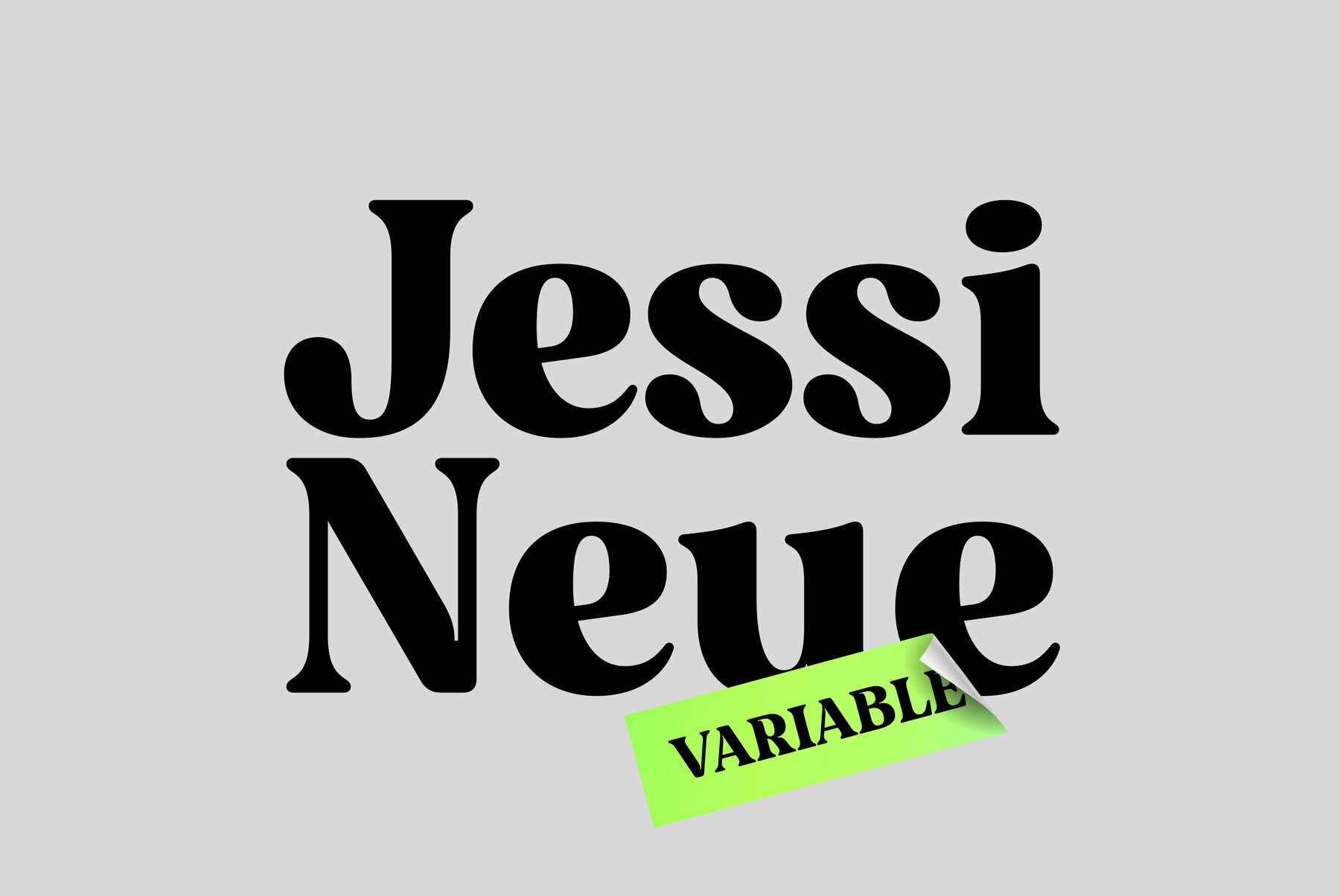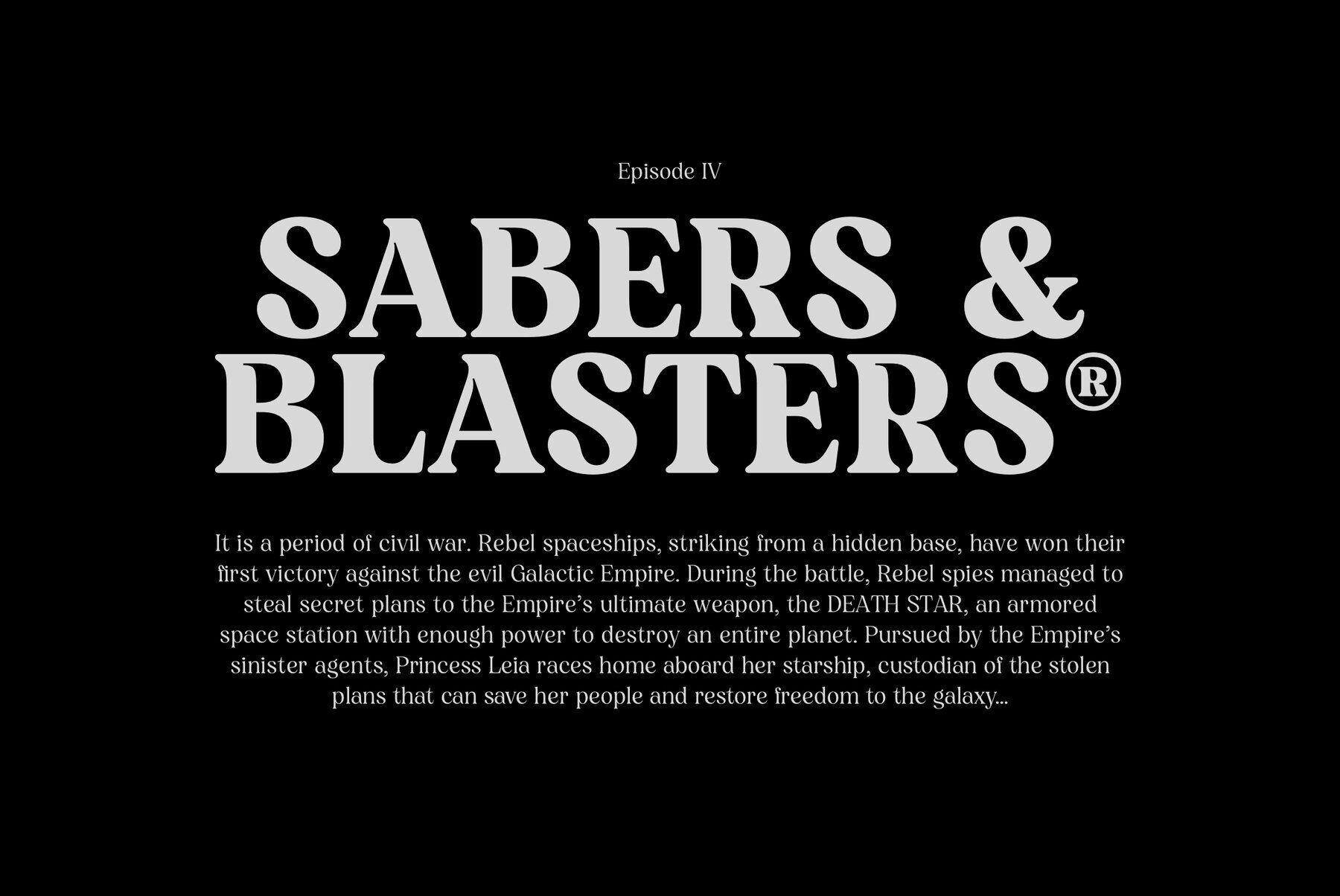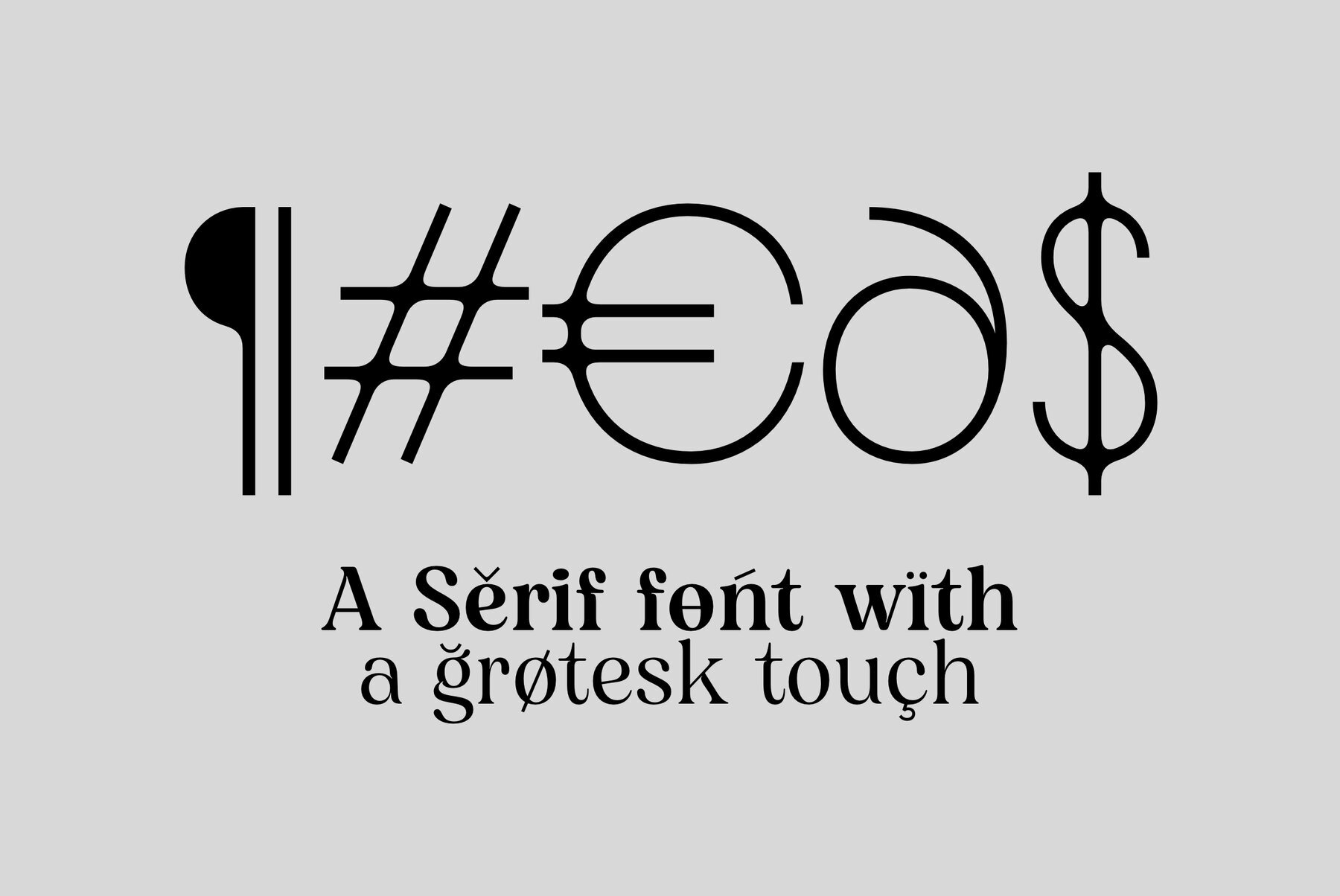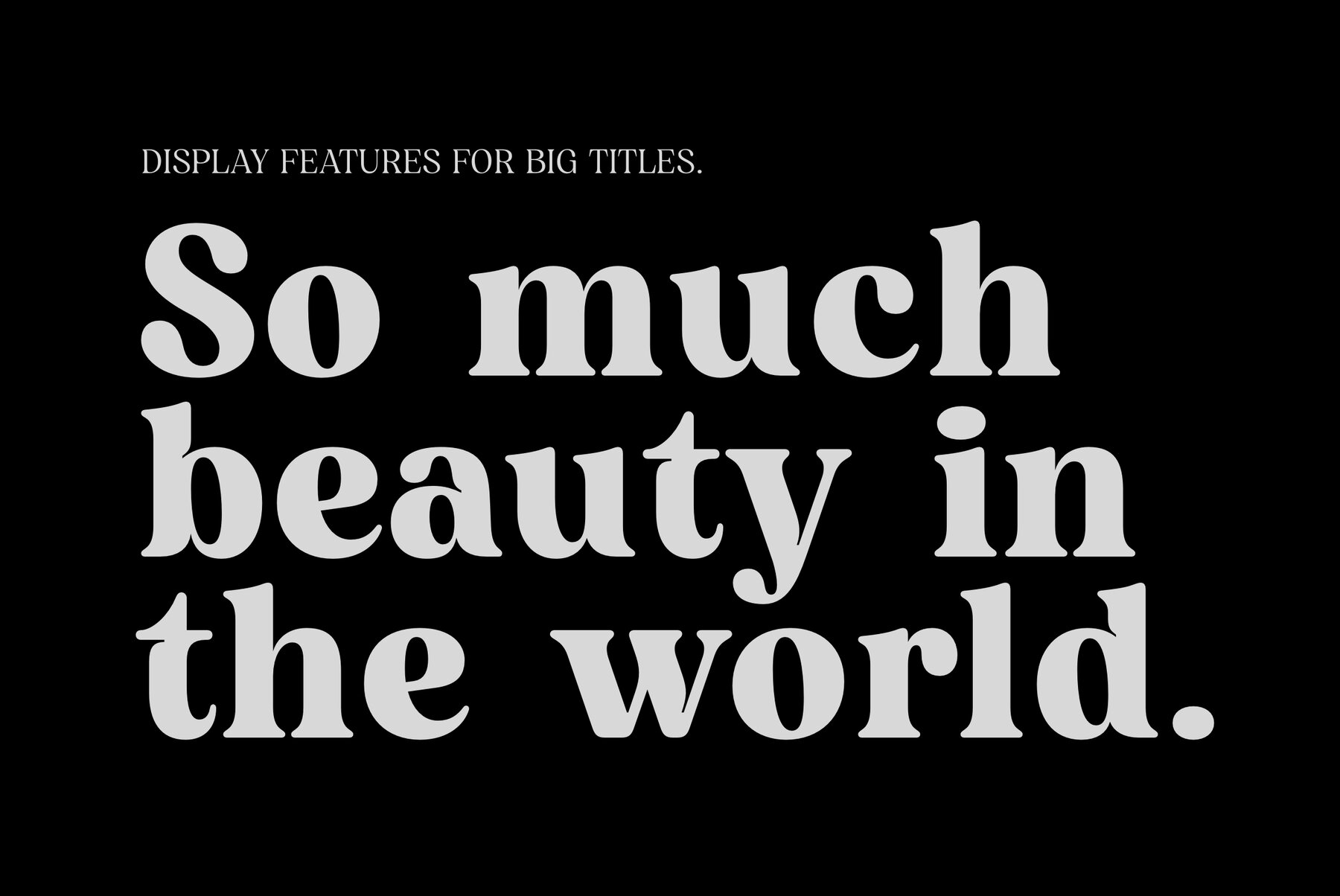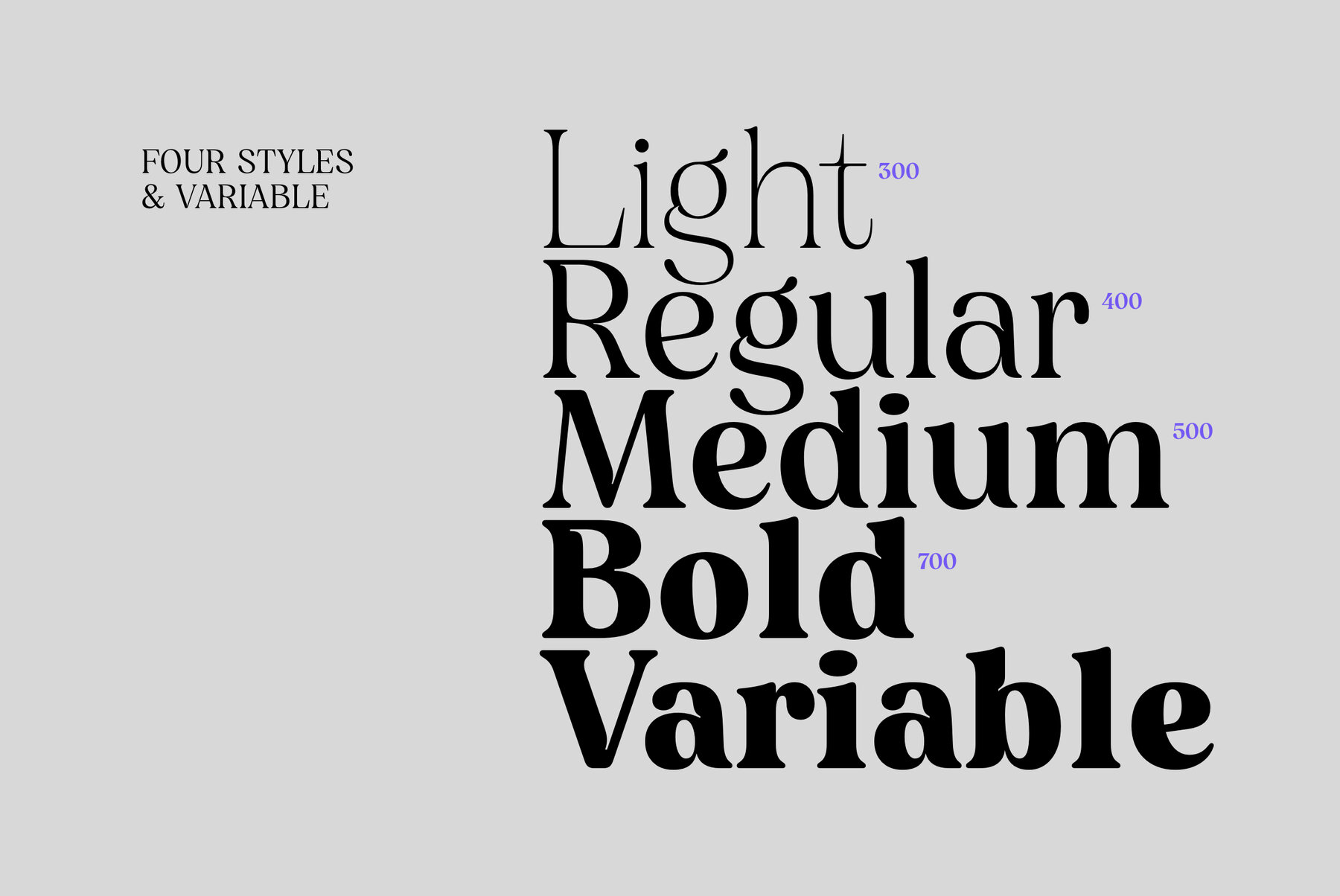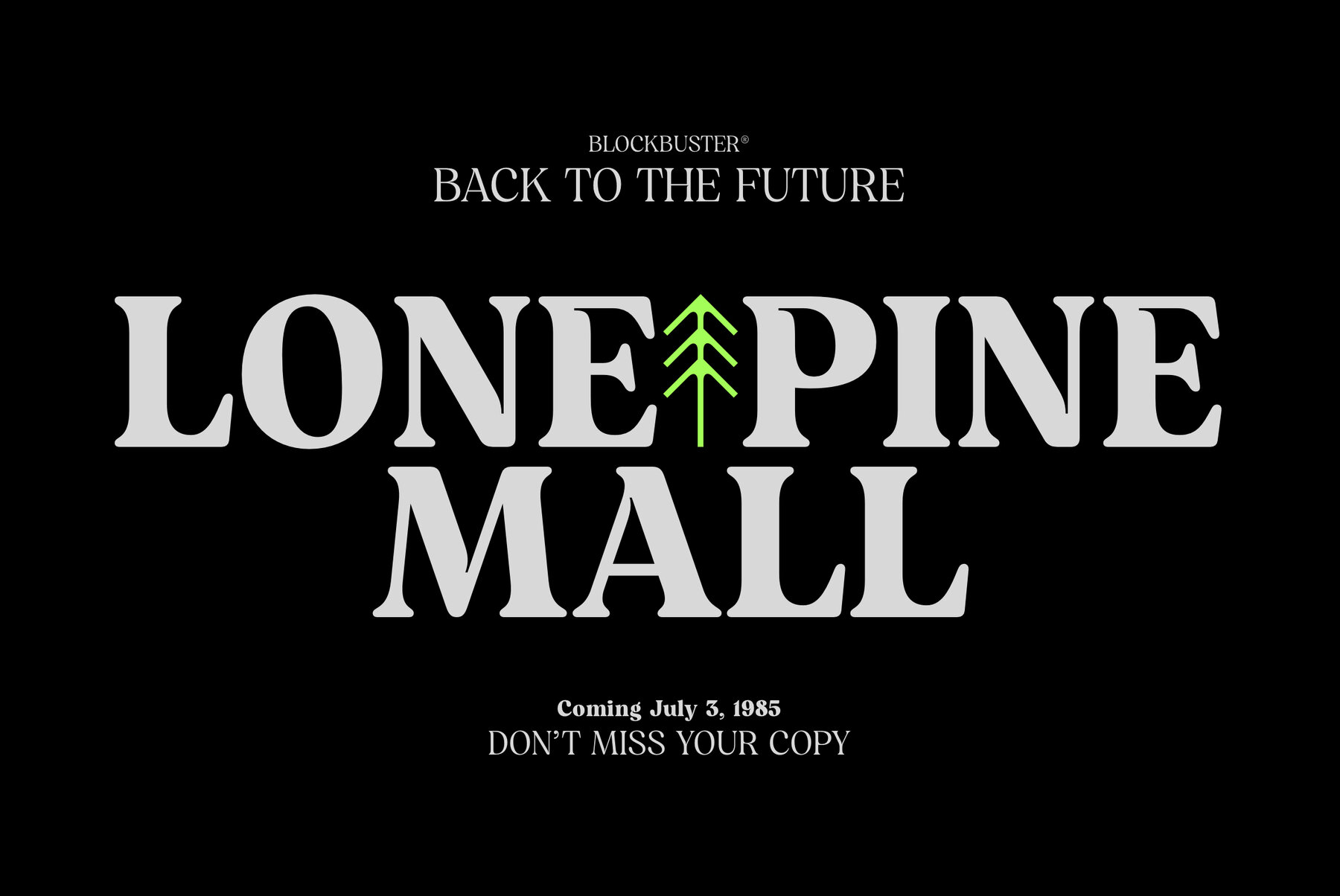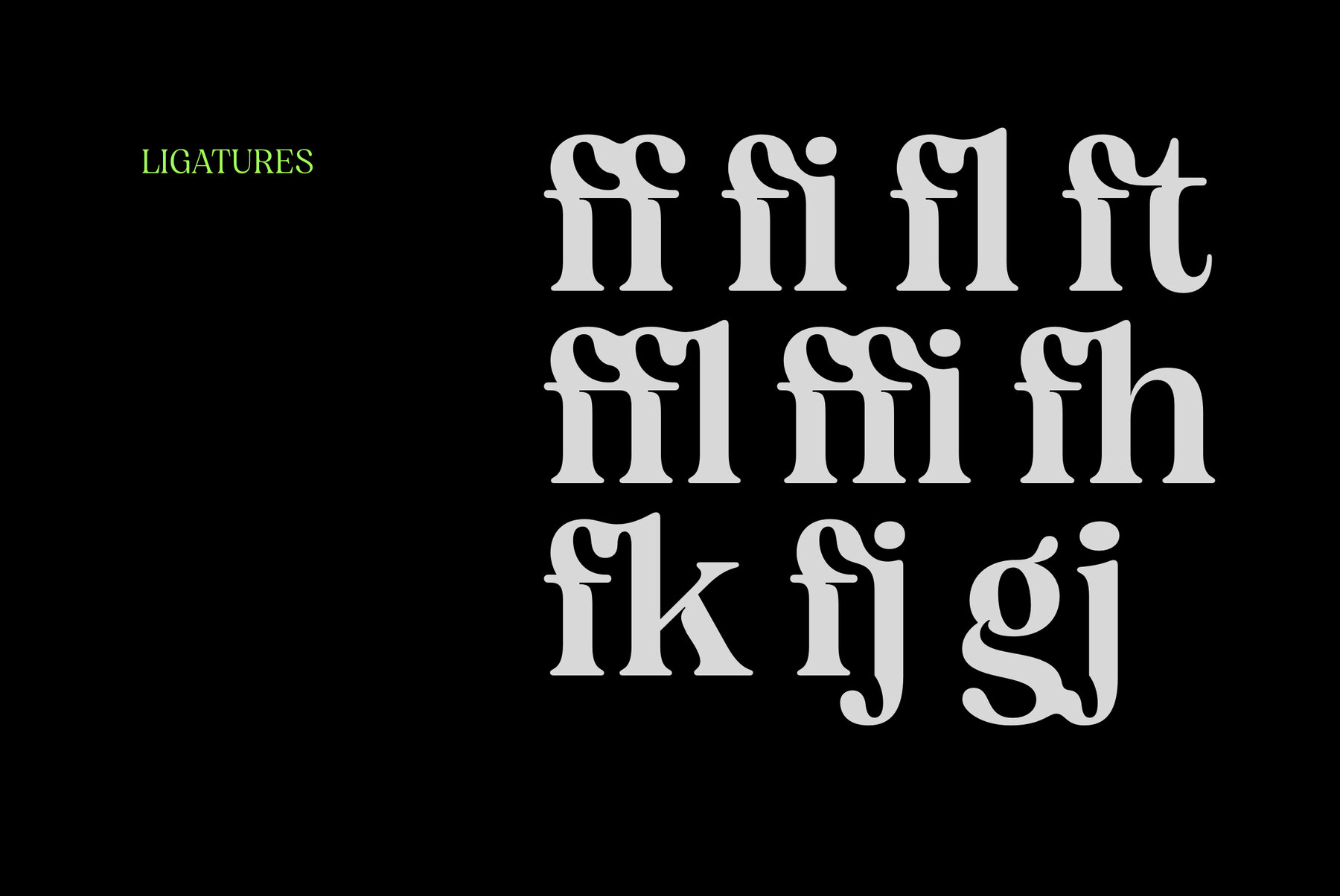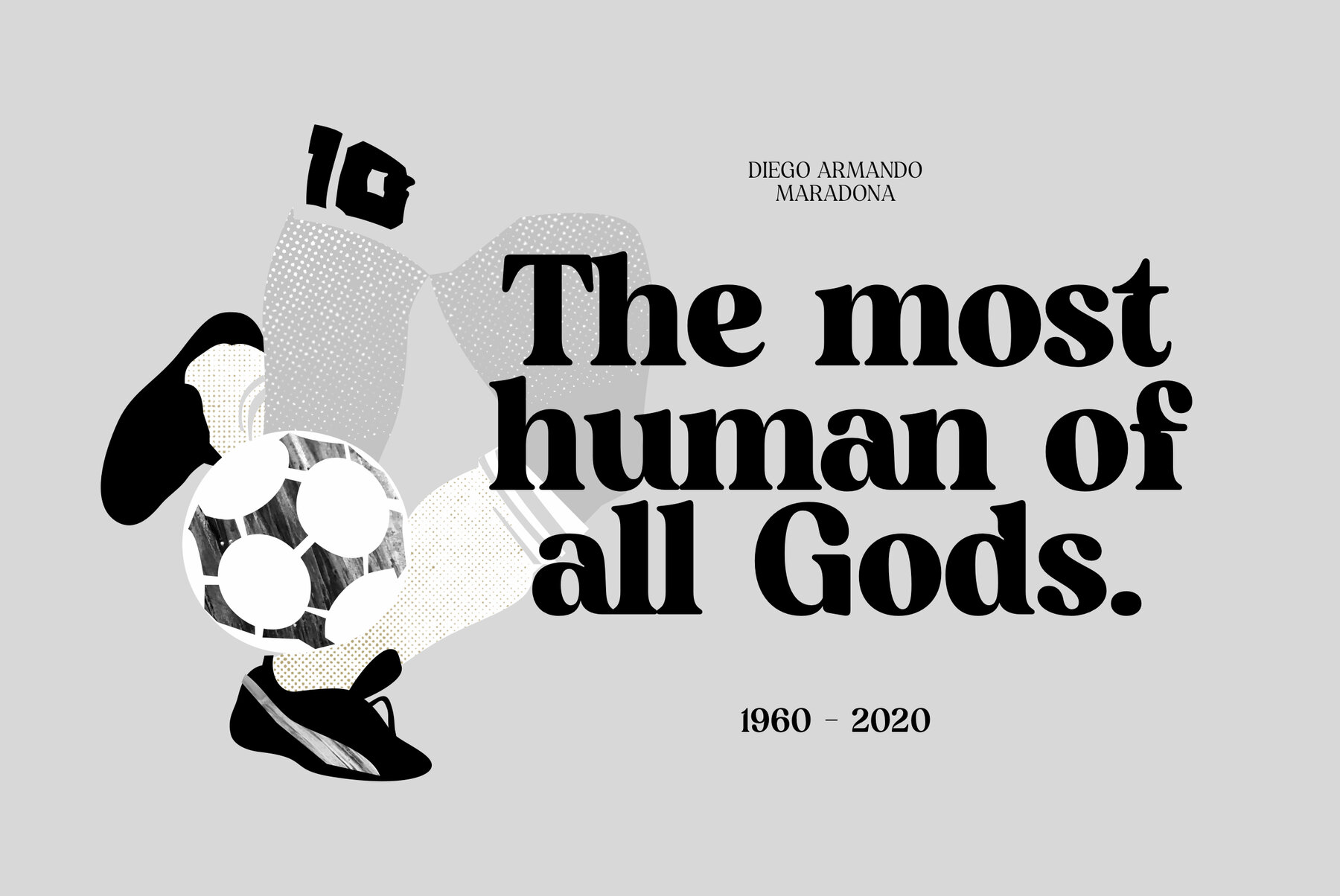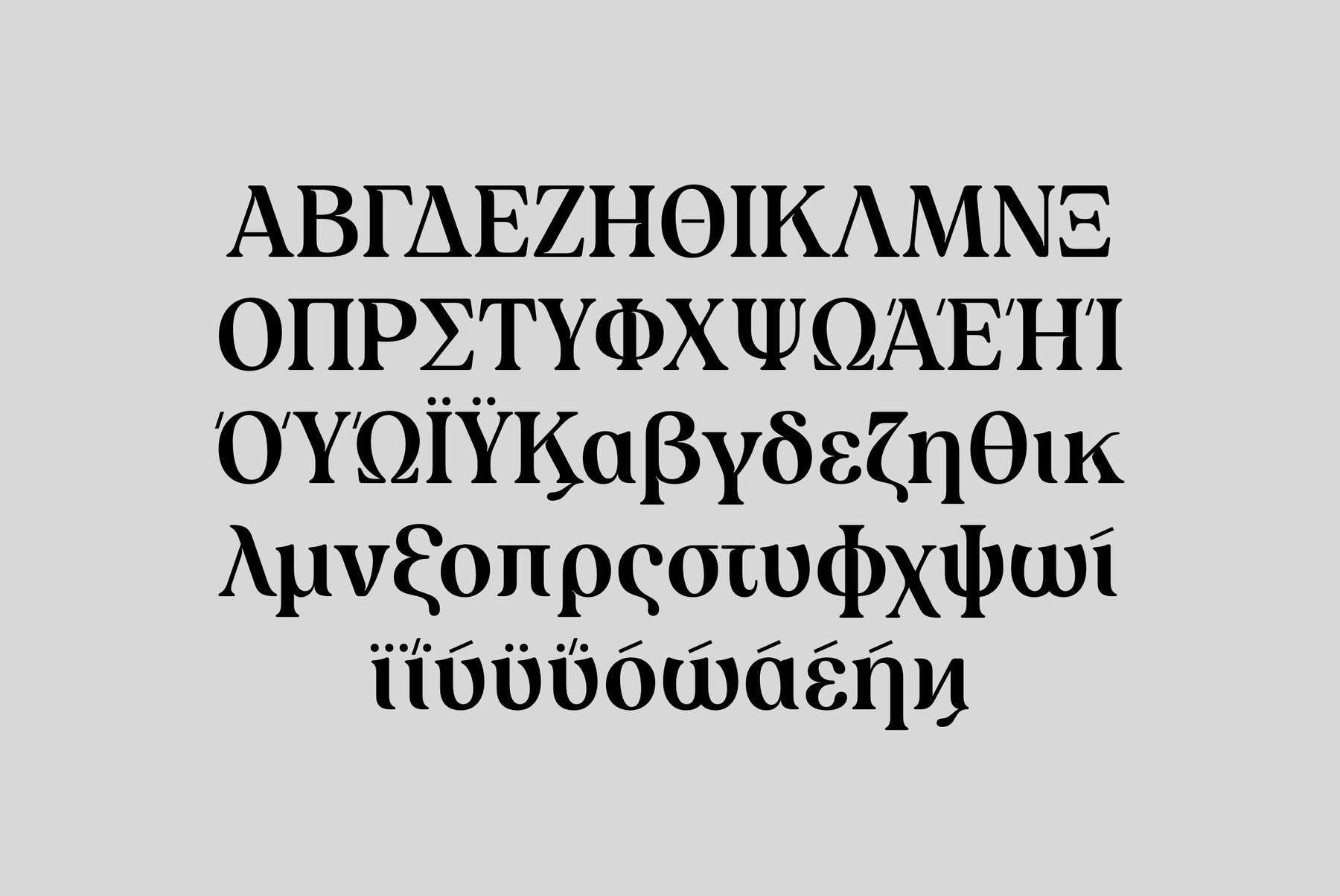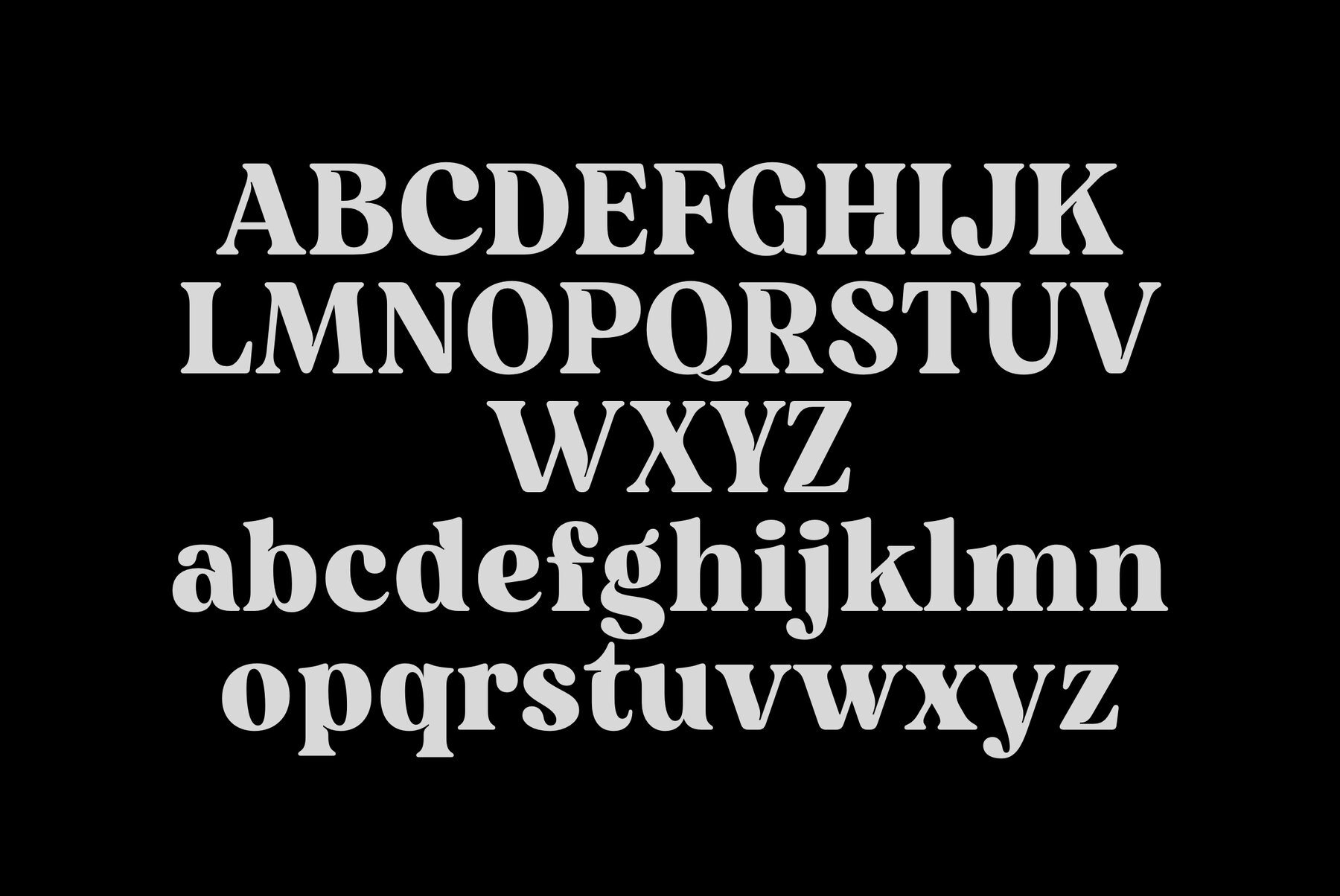
Jessi Neue Font
Jessie Neue in a new Serif typeface inspired by popular '70s fonts mixed with grotesque touches. It has ligatures that make it more elegant and grotesque elements that give it a modern look and make it more versatile. Jessi Neue has a great performance in large body texts and also in high impact headlines. The family has four weights and also a variable version to give more creative freedom. It has 667 characters that covers the following languages: Basic Latin, Western European, Central European, South Eastern European, Vietnamese, Pinyin and Basic Greek. The italic version will arrive soon.